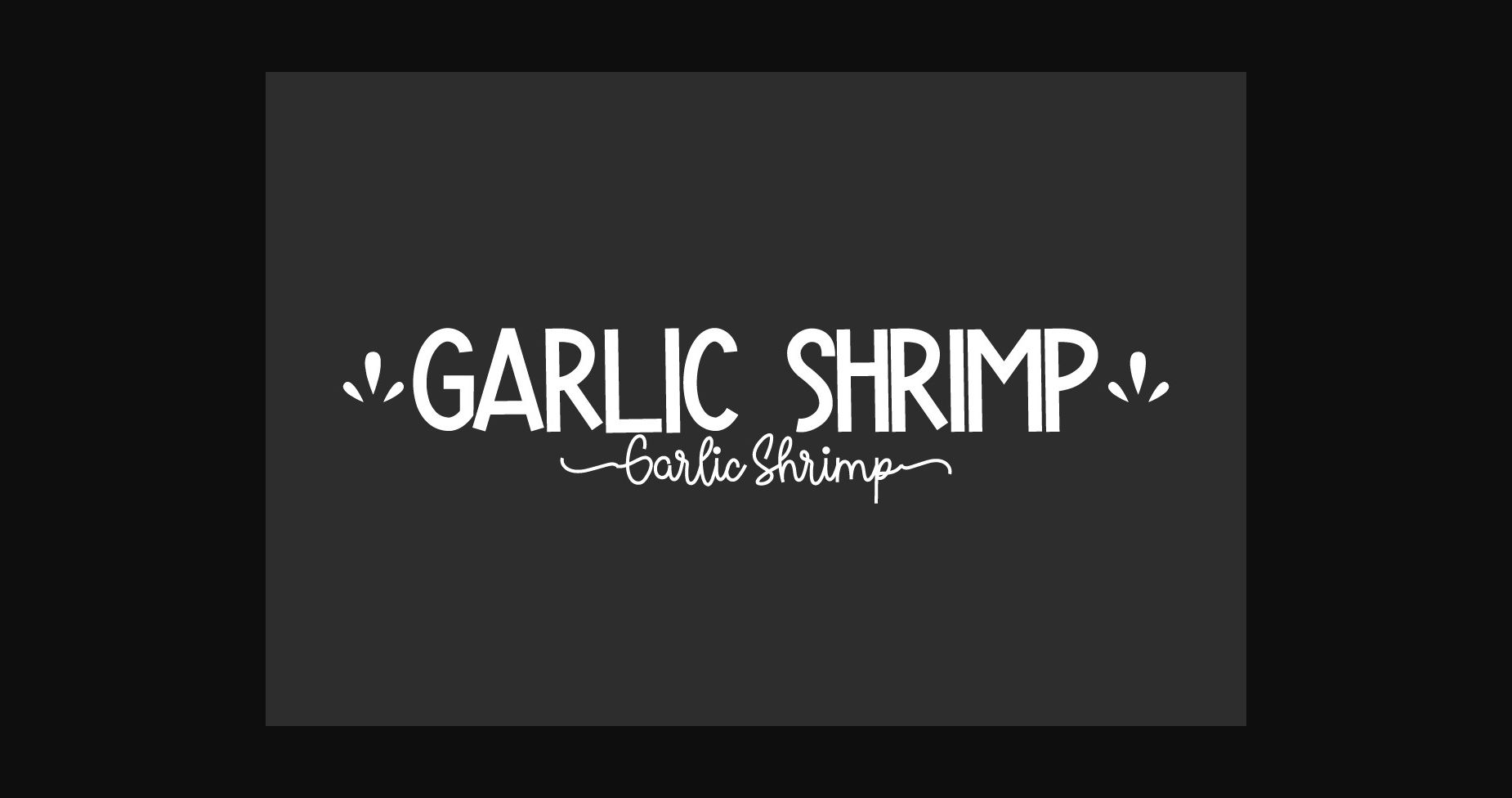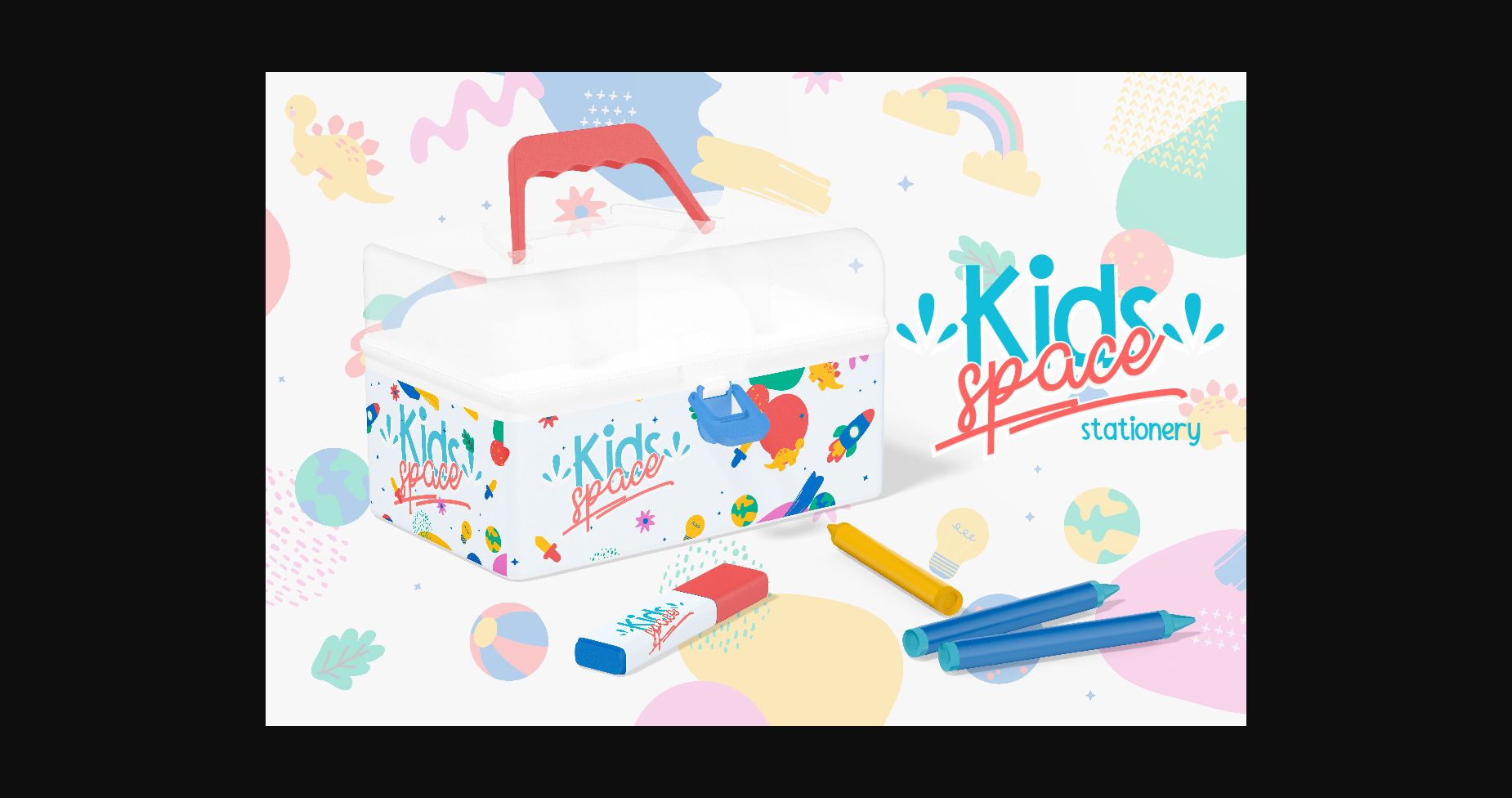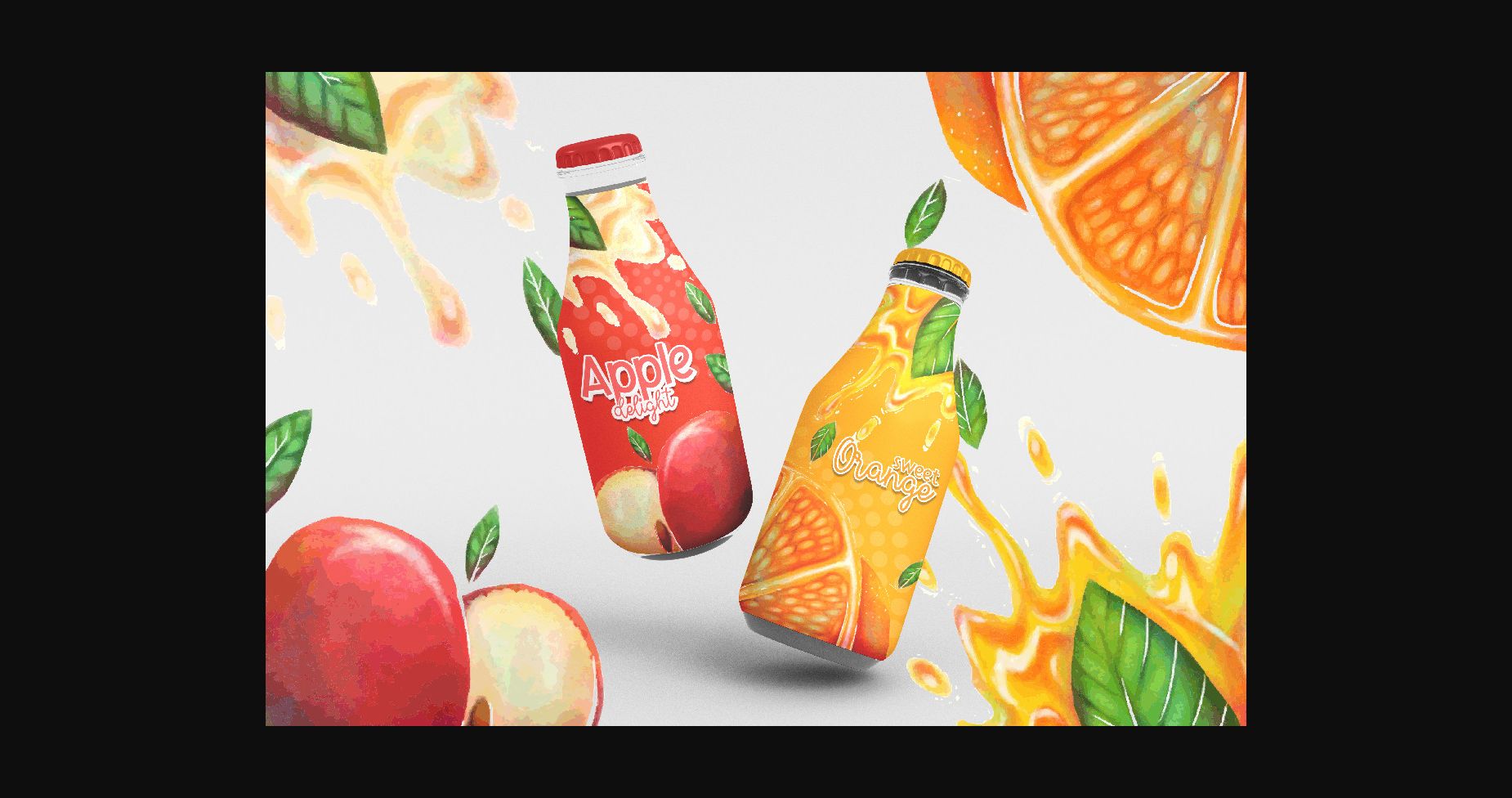
About Garlic Shrimp Duo Font
Garlic Shrimp is a font duo that consists of two different styles: a playful sans serif and a monoline handwriting script. These two fonts will give a friendly and cheerful accent to every design you make while making it standout from crowd. It will be suitable for many industries such as food and beverage, kid-friendly items, publishing, restaurants, school rafts, toys, and many more!